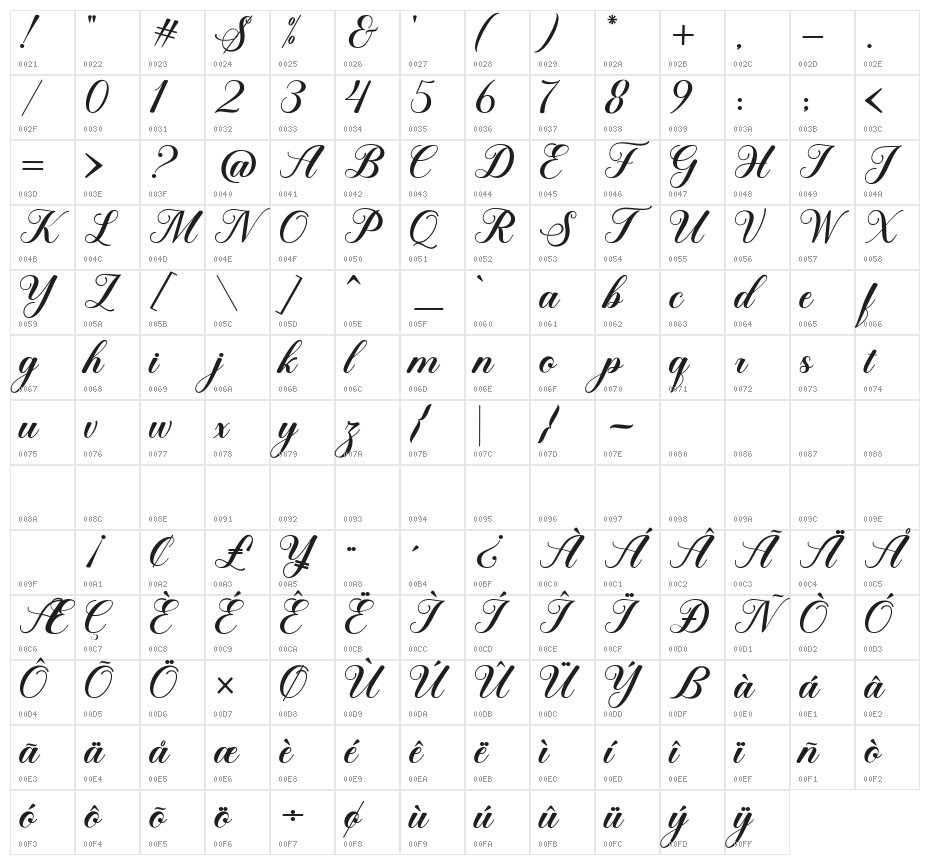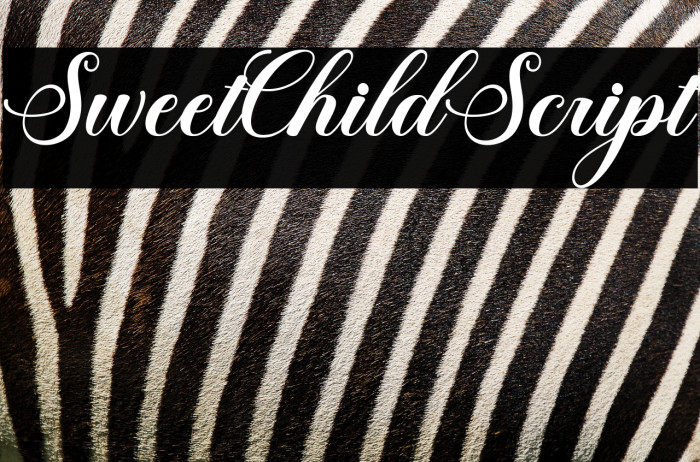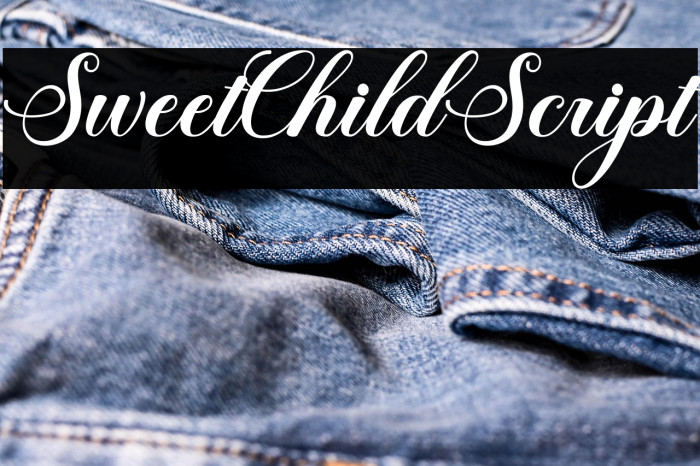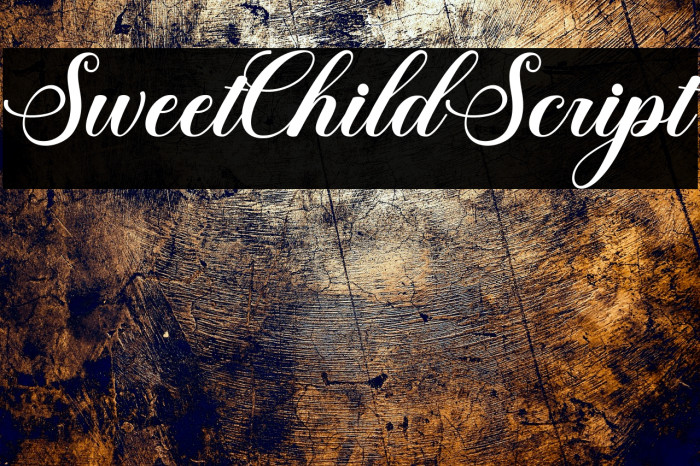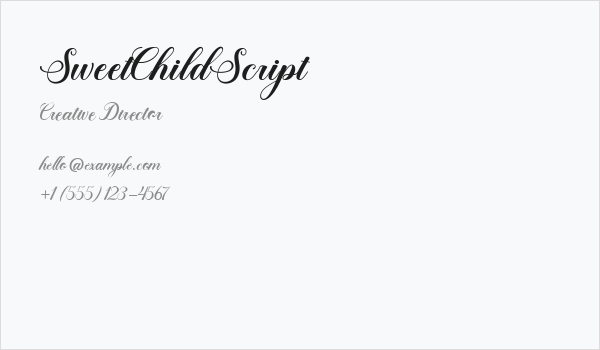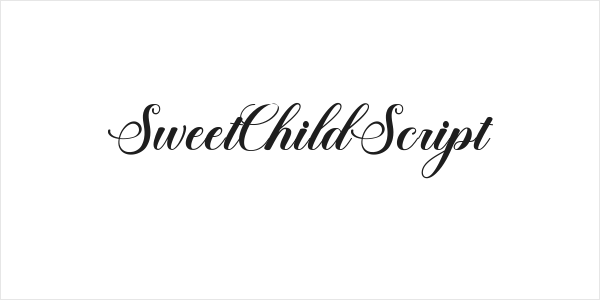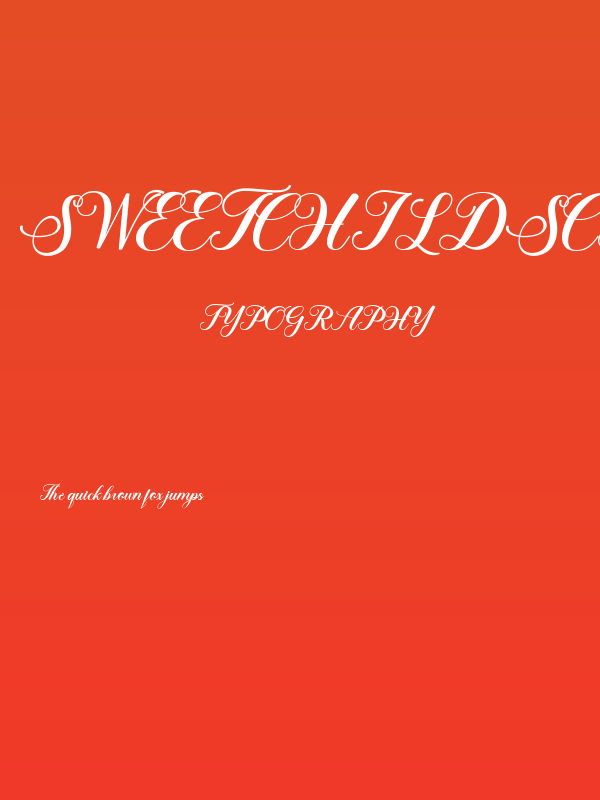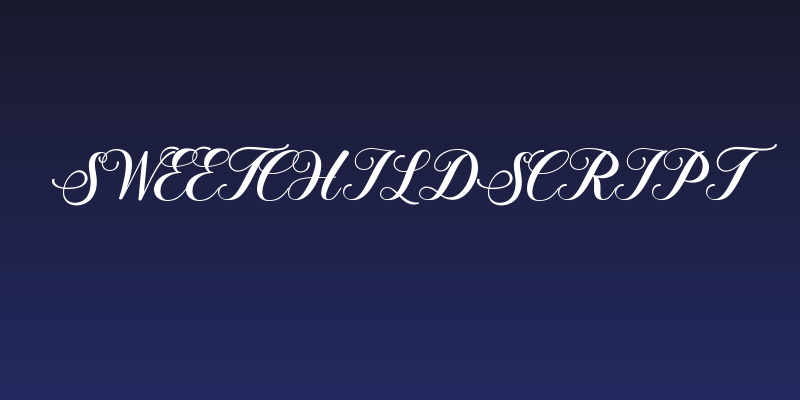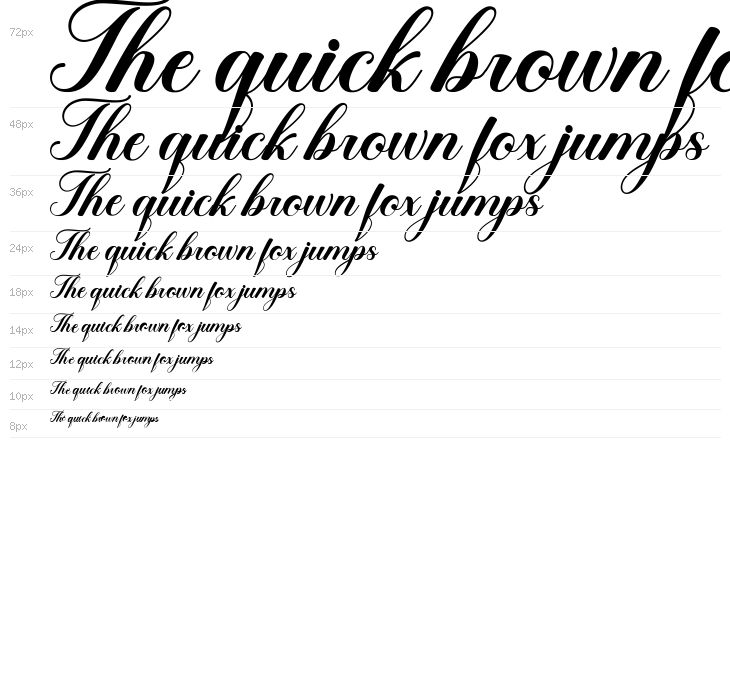
SweetChildScript Font
SweetChildScript Description
This elegant script font features flowing, cursive letterforms with a classic and sophisticated appearance. The uppercase letters are ornate, with intricate loops and flourishes that add a touch of luxury. The lowercase letters maintain a smooth and connected style, enhancing readability while preserving the decorative nature. The numerals are stylishly curved, complementing the overall aesthetic. Special characters are designed with similar flair, ensuring consistency across all glyphs. This font exudes a sense of refinement and grace, making it ideal for formal and high-end design projects.
| Overall Style | Classic |
| Use Case | Logos, Invitations, Branding |
| Proposed Projects | Ideal for wedding invitations, luxury branding, elegant packaging, and formal event materials. |